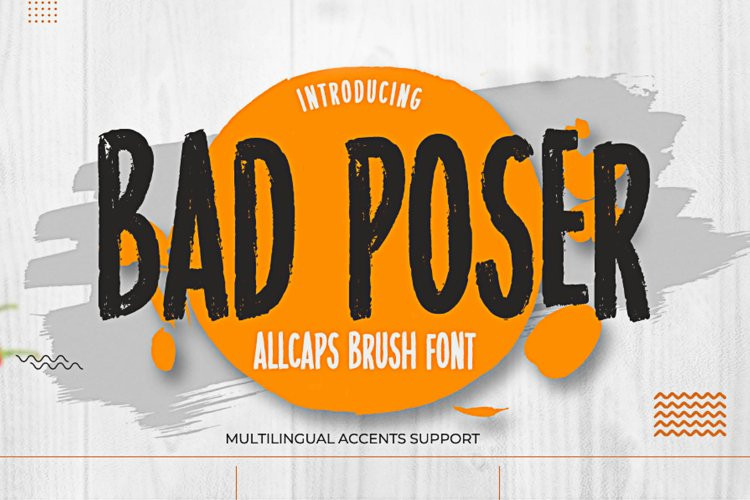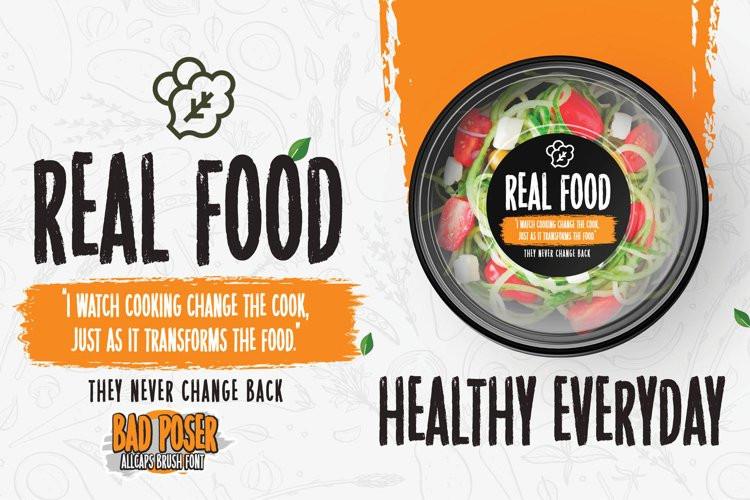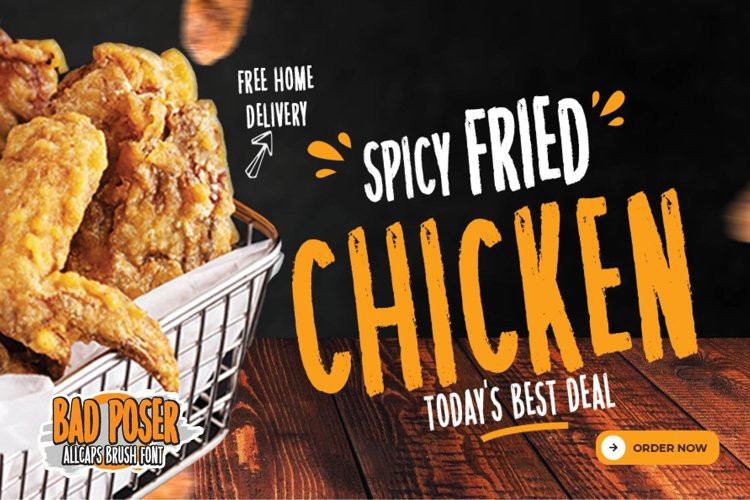
Bad Poser Font
Bad PoserHere comes a New font, Bad Poser is a All Caps Brush Font that is written casually and quickly.
Letters are made with brushes on Procreate. Then crafted carefully drawn into vector format.
That is why Bad Poser has Stylish and strong characteristic more natural look to your text with a more modern look to your text.
Bad Poser is perfect for homeware designs,branding projects, Logo design, Quotes product packagingprinted quotes, invitations, cards, product packaging, headers, Logotype, Letterhead, PosterLabel, cartoon, and comic etc.